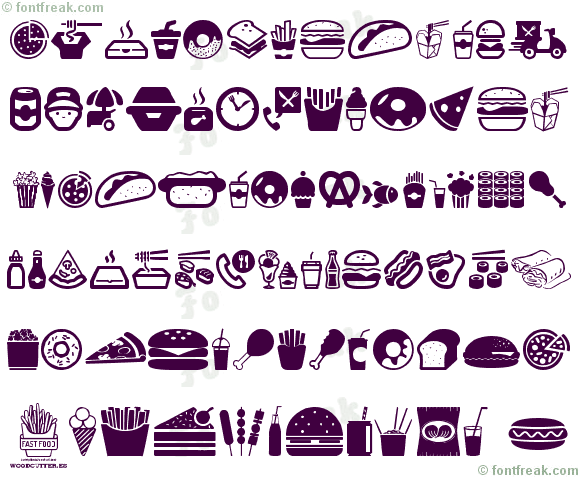
Fast Food Icons
About Fast Food Icons
The Fast Food Icons font by woodcutter Manero is a distinctive decorative typeface that captures the essence of fast food culture through its playful design. This font features a collection of unique icons representing various fast food items, making it an ideal choice for projects that require a fun and engaging visual appeal. The icons are characterized by their bold stroke weight and minimal contrast, providing a clear and easily recognizable aesthetic. The spacing between the icons is well-balanced, ensuring that each element stands out while maintaining a cohesive look.
This font is particularly suitable for a variety of creative applications, such as restaurant menus, food truck branding, promotional materials for fast food events, and even social media graphics aimed at food enthusiasts. Additionally, it can be utilized in children’s menus or educational materials that focus on healthy eating, making it versatile for both commercial and personal projects. The target audience for the Fast Food Icons font includes graphic designers looking to add a whimsical touch to their designs, small business owners in the food industry who want to enhance their branding, and content creators who wish to engage their audience with visually appealing content.
What sets the Fast Food Icons font apart is its ability to convey the spirit of fast food through engaging visuals, making it a standout choice for anyone looking to infuse a sense of fun and excitement into their projects. With the Fast Food Icons font free download, you can easily incorporate these charming icons into your own work, ensuring that your designs resonate with a diverse audience while celebrating the joy of fast food.